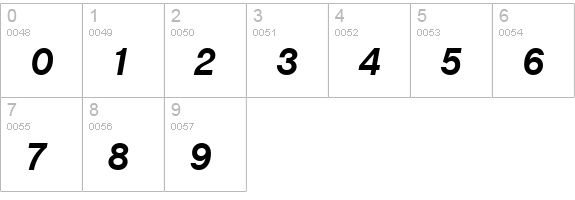
ChaletBook Bold Italic Font Details
ChaletBook Bold Italic is a strong, high-contrast, italic variant in the ChaletBook typeface family \xE2\x80\x94 well suited to headlines, attention-grabbing titles, and strong calls-to-action.
Introducing ChaletBook Bold Italic, a beautifully crafted font that exudes elegance and sophistication. This font is the perfect choice for adding a touch of luxury to your designs, whether it be for branding, invitations, or editorial projects. With its bold and italic style, ChaletBook Bold Italic commands attention and exudes a sense of modernity. The best part? ChaletBook Bold Italic is available for free download at FontsMarket.com. This means you can elevate your projects without having to worry about breaking the bank. Embrace the versatility and timeless elegance of ChaletBook Bold Italic in your designs today!